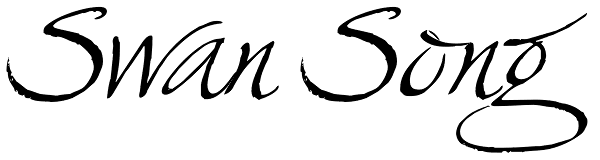
Swan Song
Swan Song is a digitization of gorgeous free form calligraphy by British artist Rachel Yallop. It first appeared in The Calligraphy Source Book edited by Miriam Stribley (Running Press, 1986). Rooted in day to day handwriting, Swan Song is a quick...